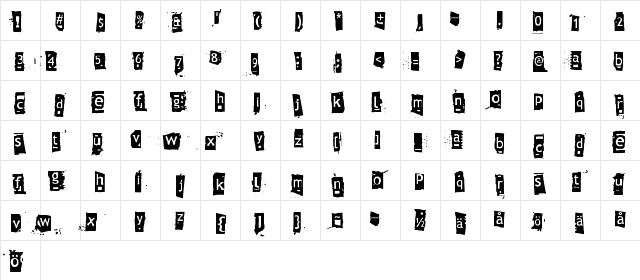
Znort3000 Regular
Design Context for Znort3000 Typeface
Znort3000 is a composed and adaptable typeface that performs quietly and consistently across a wide range of design contexts.